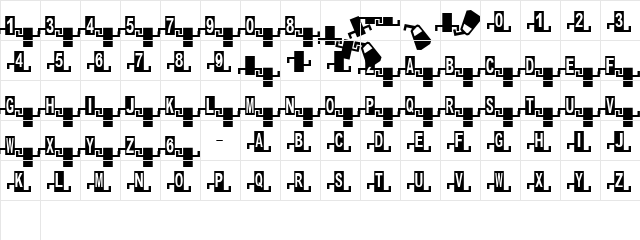
Zipper1 Cyr Regular
Design Context for Zipper1 Cyr
Zipper1 Cyr is a composed and adaptable typeface that performs quietly and consistently across a wide range of design contexts.
Pro Tip: Use Zipper1 Cyr in both headline and body roles to test its range before committing to a single application.